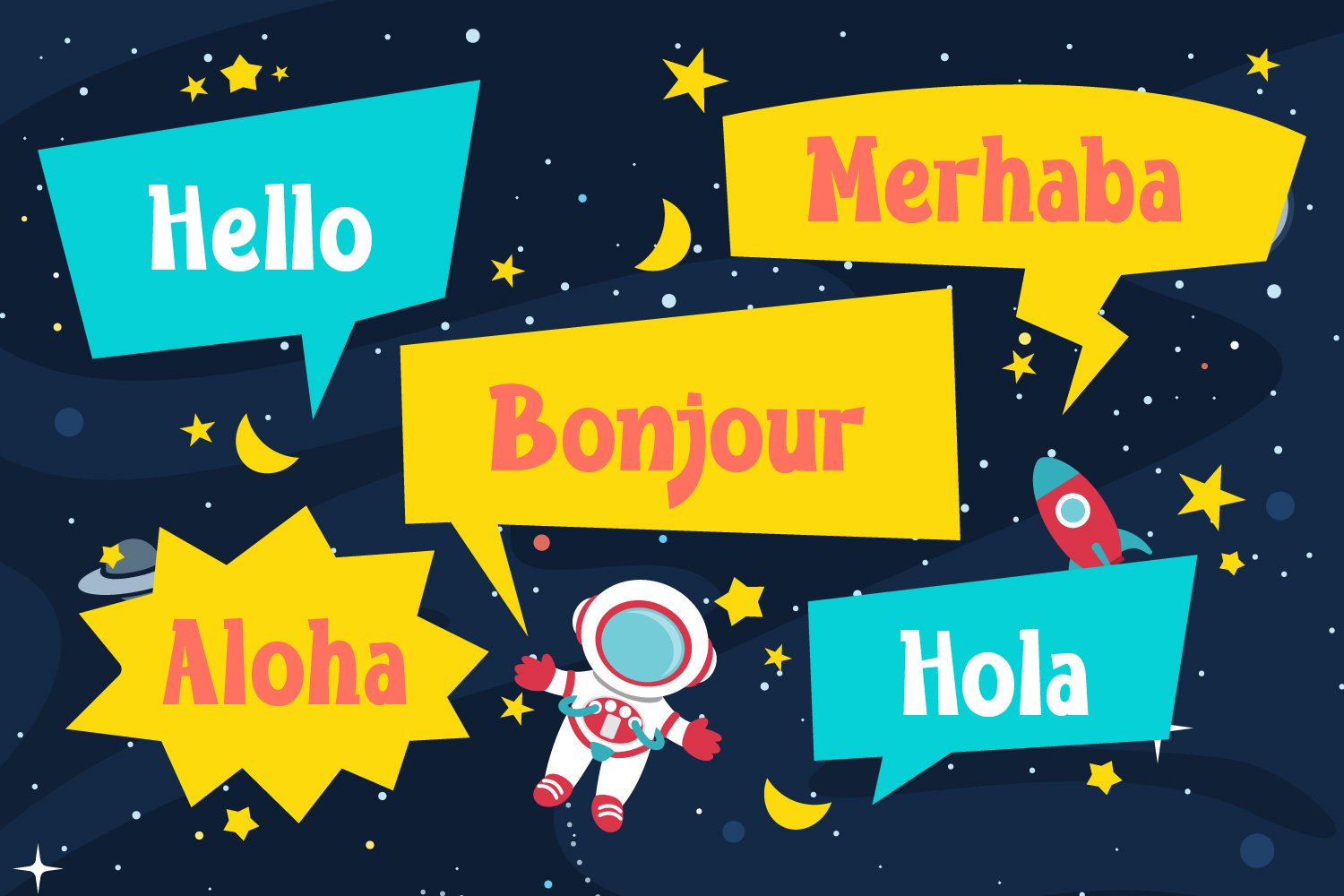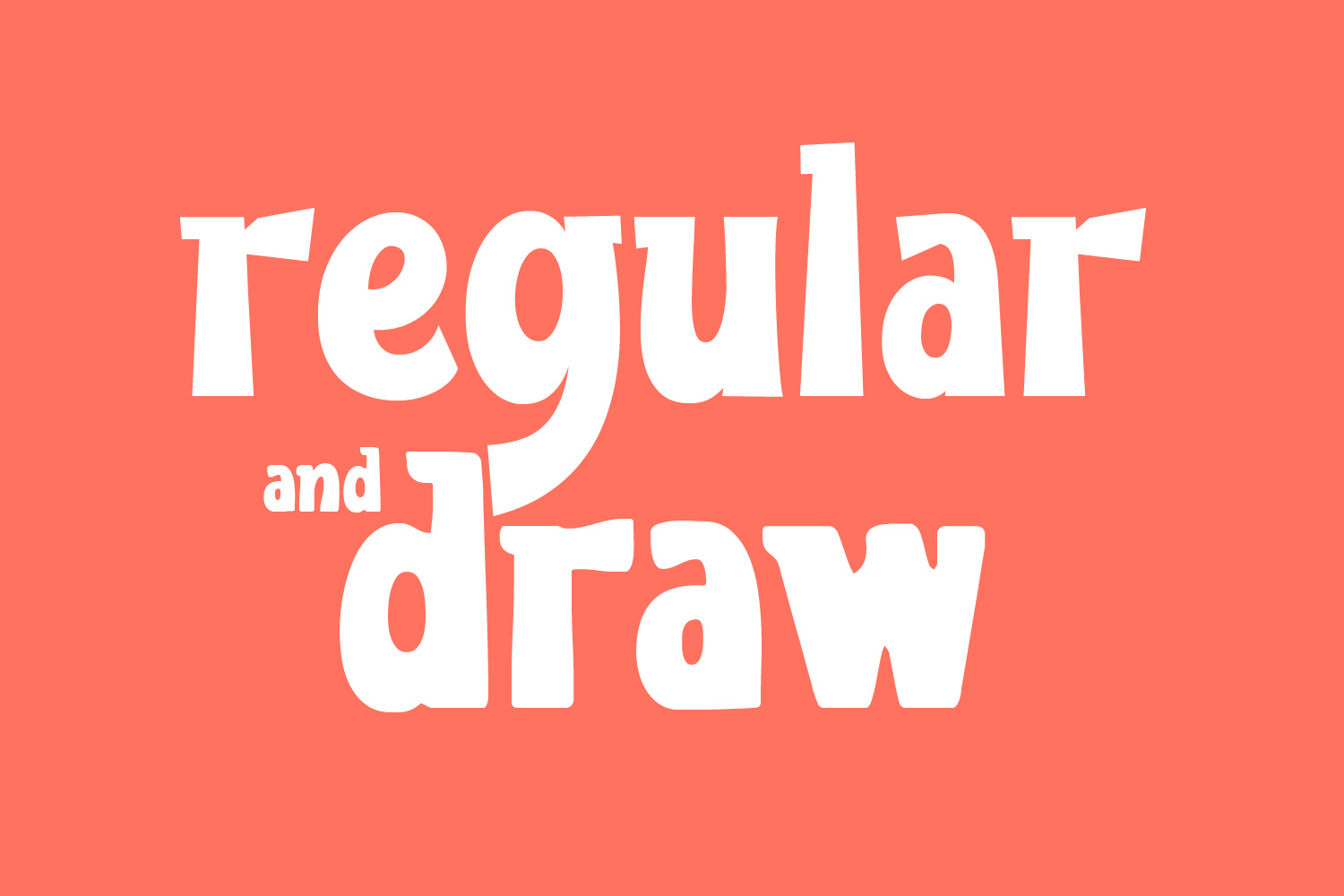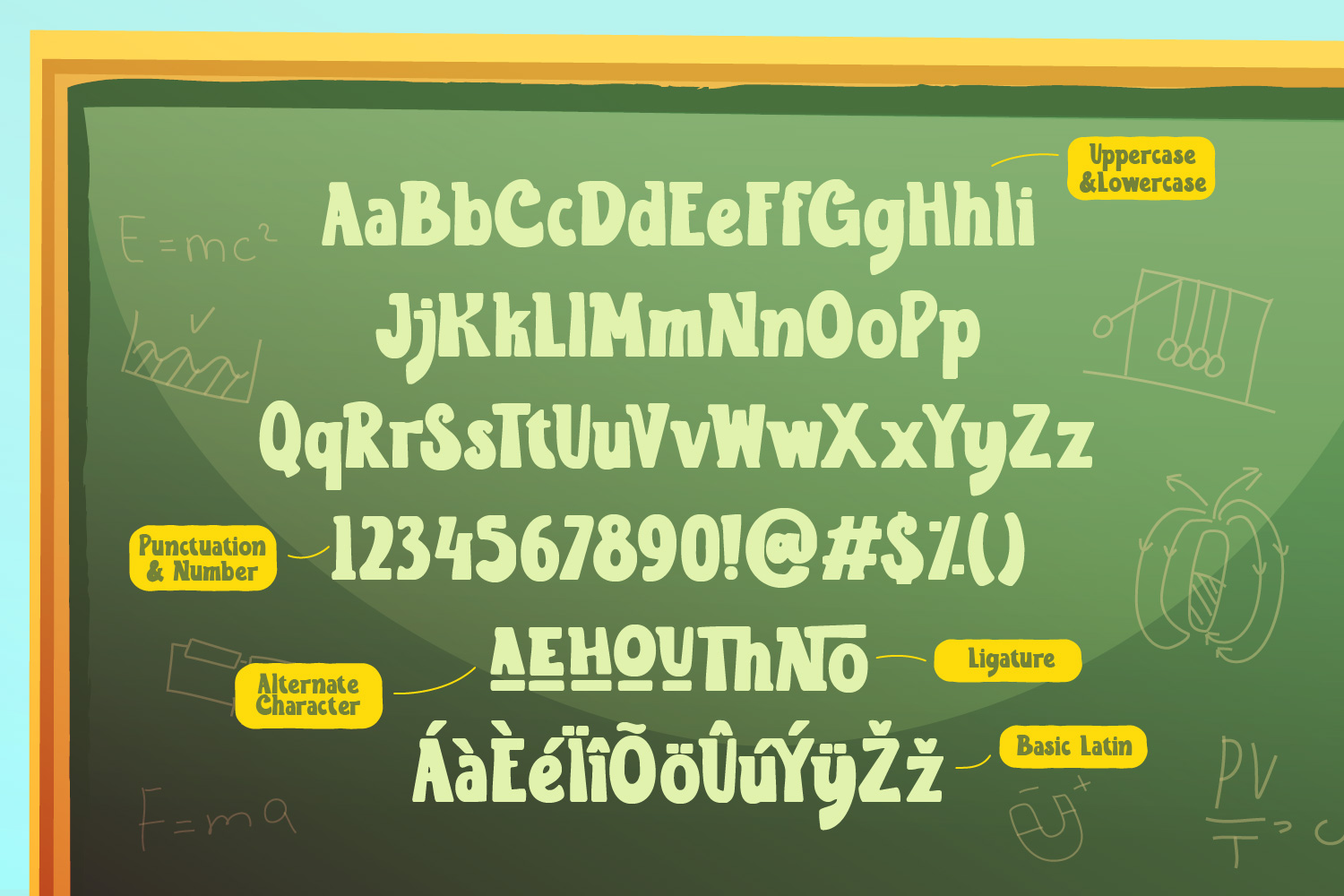
LD Funbites Free Font
LD Funbites Free Font is a hand-drawn playful typeface. They have a regular (clean) & draw style. The clean style has an angeled angle and draws version have a feel like hand-drawn. LD Funbites comes with cute & fun character which are suitable for any kids design like a t-shirt, book cover, merchandise and many more. LD Funbites also comes with Multilingual language and some alternate characters that you can see in the preview. This free typeface was designed by the talented Muthia Fajrijannah. If you like it don’t forget to check out the full version.